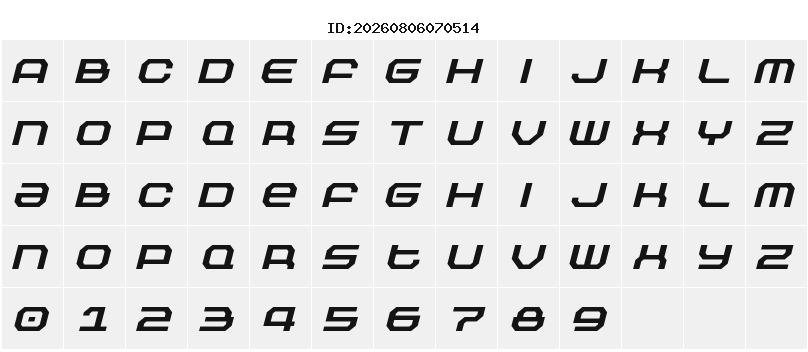
• Font Name: Outland Black
• Full Font Name: Outland Black Italic
• Designer: Neale Davidson
• Manufacturer: Pixel Sagas
About Outland Black.otf
Outland Black.otf is a modern, elegant sans-serif font designed for ultimate readability and visual harmony. Perfect for branding, headlines, web design, and print materials.